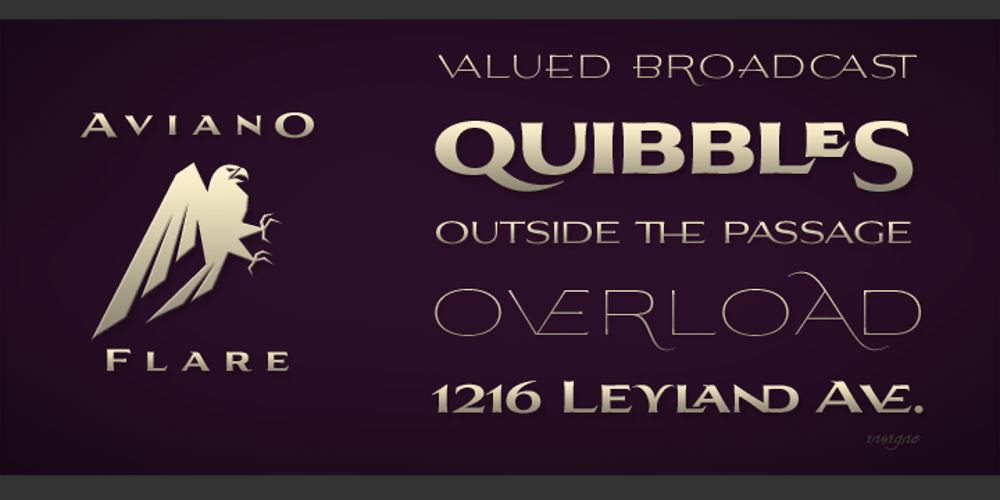
Aviano Flare Font Family was designed by Jeremy Dooley and published by insigne. Aviano Flare contains 6 styles and family package options. The Aviano series returns with a flared semi-serif. Aviano Flare’s subtly curved forms lend refinement and luxurious elegance to your designs. Aviano’s foundational extended classical forms give the face strength and power. Aviano Flare is a versatile new addition to the Aviano titling series. Aviano Flare comes in six different weights and is packed with OpenType features. Want to get rid of the serifs for that logotype or headline? Need swash forms? Art Deco alternates? Aviano Flare includes 74 alternate characters. Two style sets are available, two sets of art deco inspired alternates, small forms, swash, titling and stylistic alternates. Aviano Flare also includes 40 discretionary ligatures for artistic typographic compositions. Please see the informative .pdf brochure to see these features in action. Be sure to check out the rest of the Aviano series which can be used as complementary faces, including Aviano, Aviano Serif, Aviano Sans, Aviano Didone and Aviano Slab.